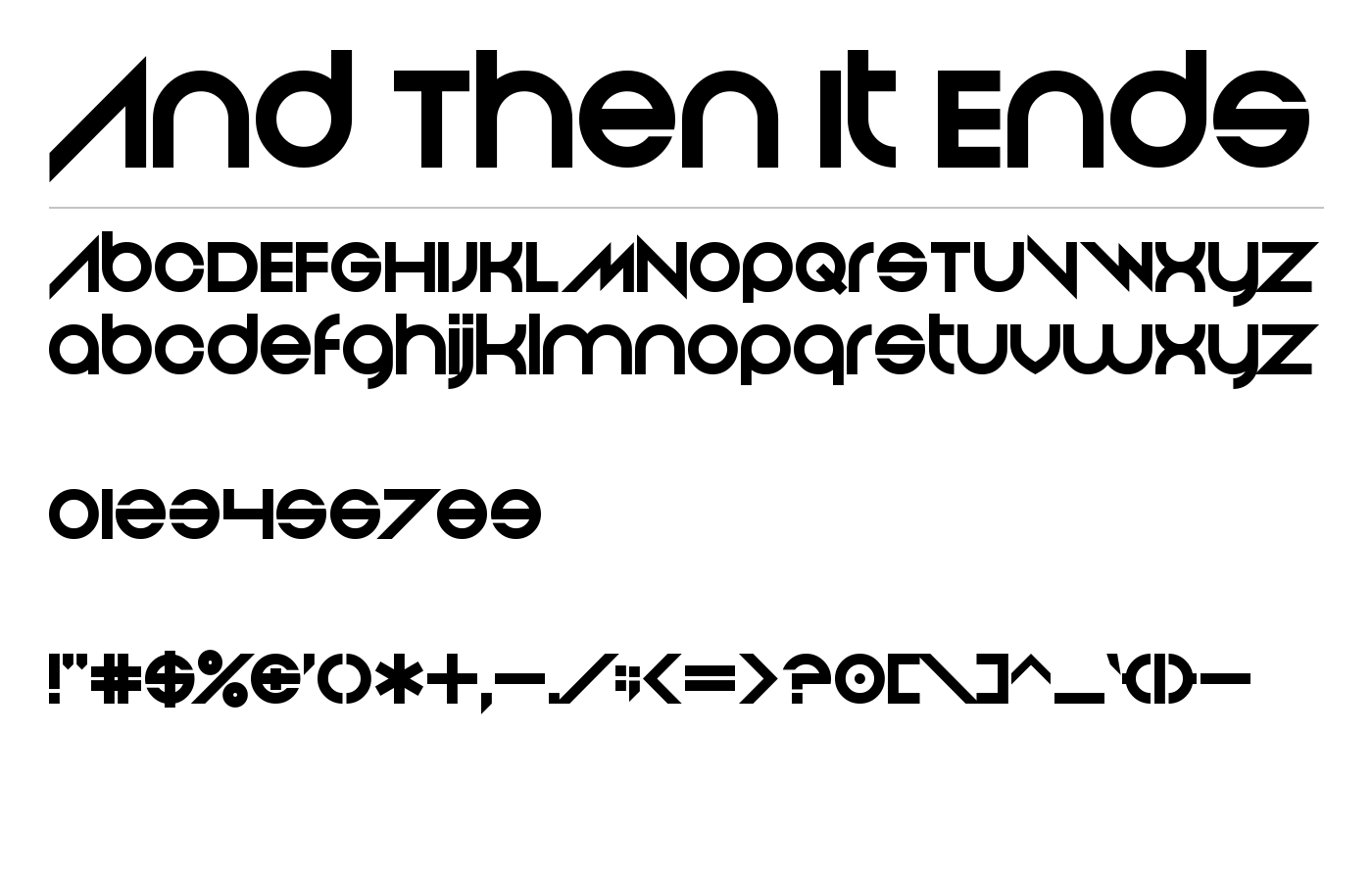
And Then It Ends is a bold, geometric sans serif font with a futuristic and slightly avant-garde style. Its strong, angular shapes combined with clean, rounded curves create a dynamic contrast, making it ideal for attention-grabbing headlines, logos, and modern branding projects. This font’s unique letterforms and sharp, edgy details convey a sense of innovation and boldness, perfect for creative designs that want to stand out.
And Then It Ends Font